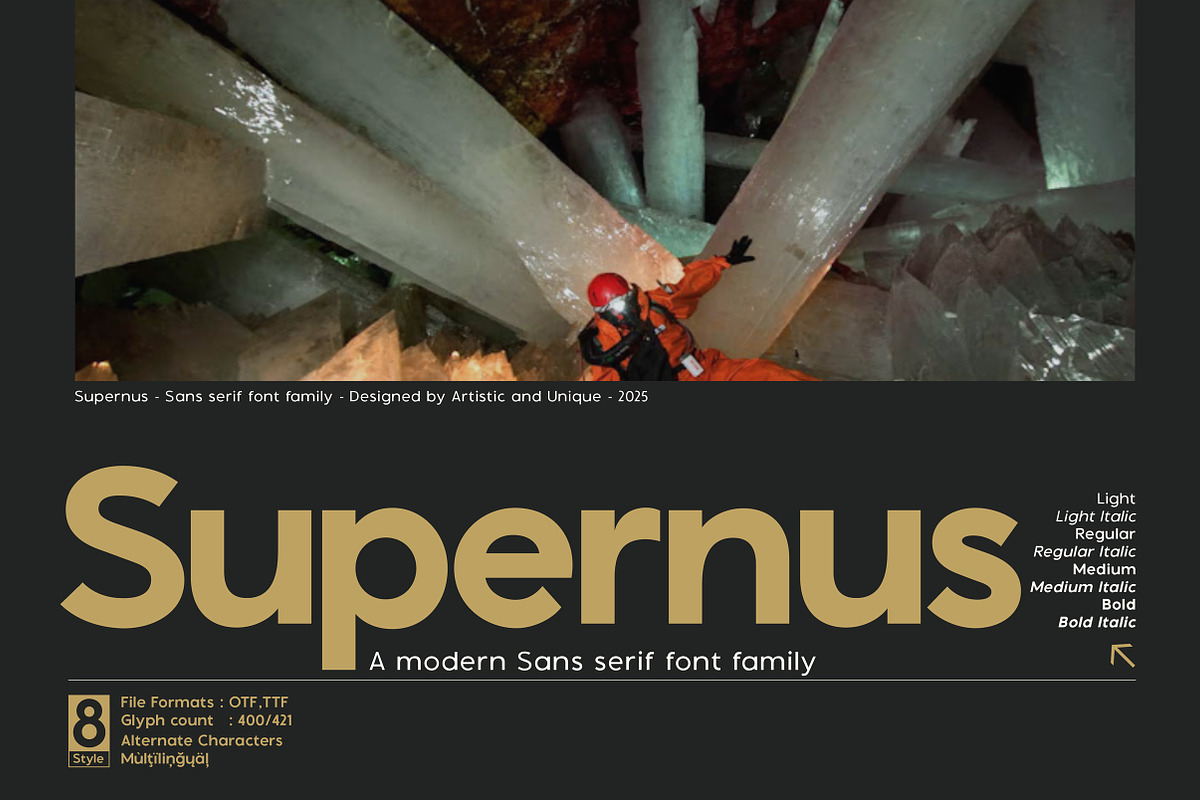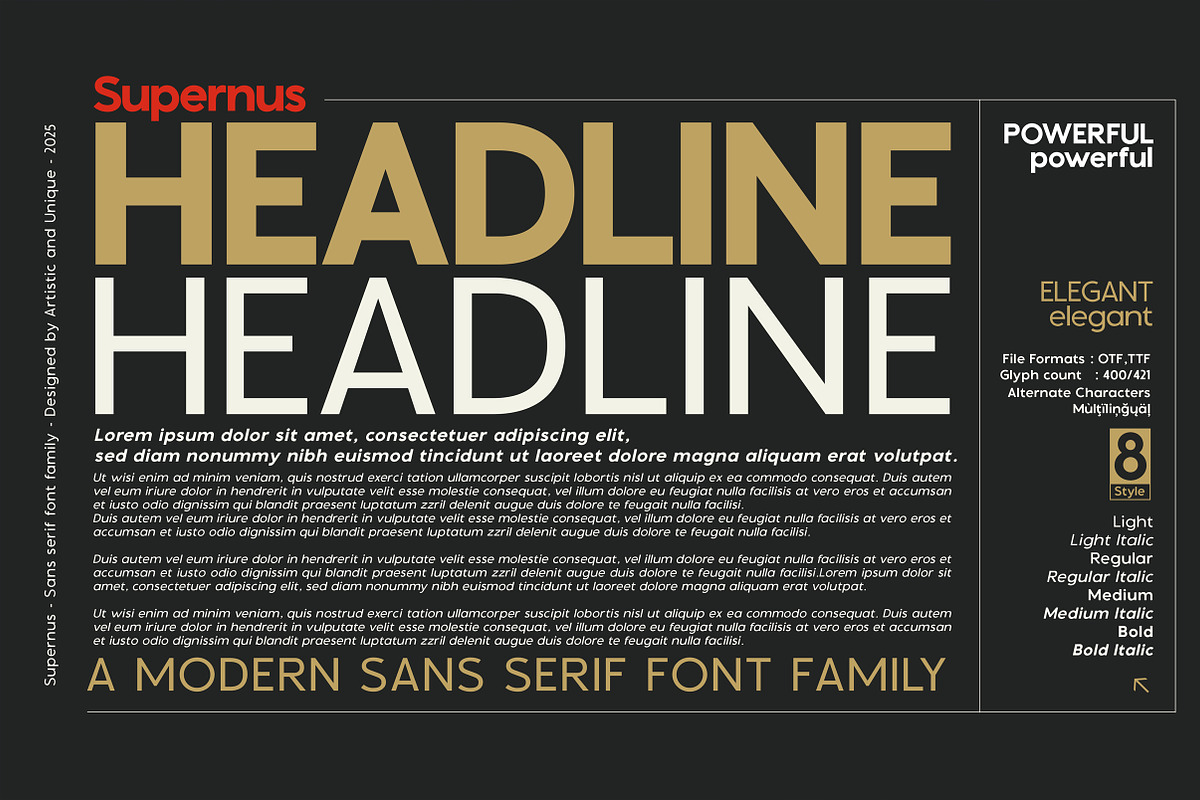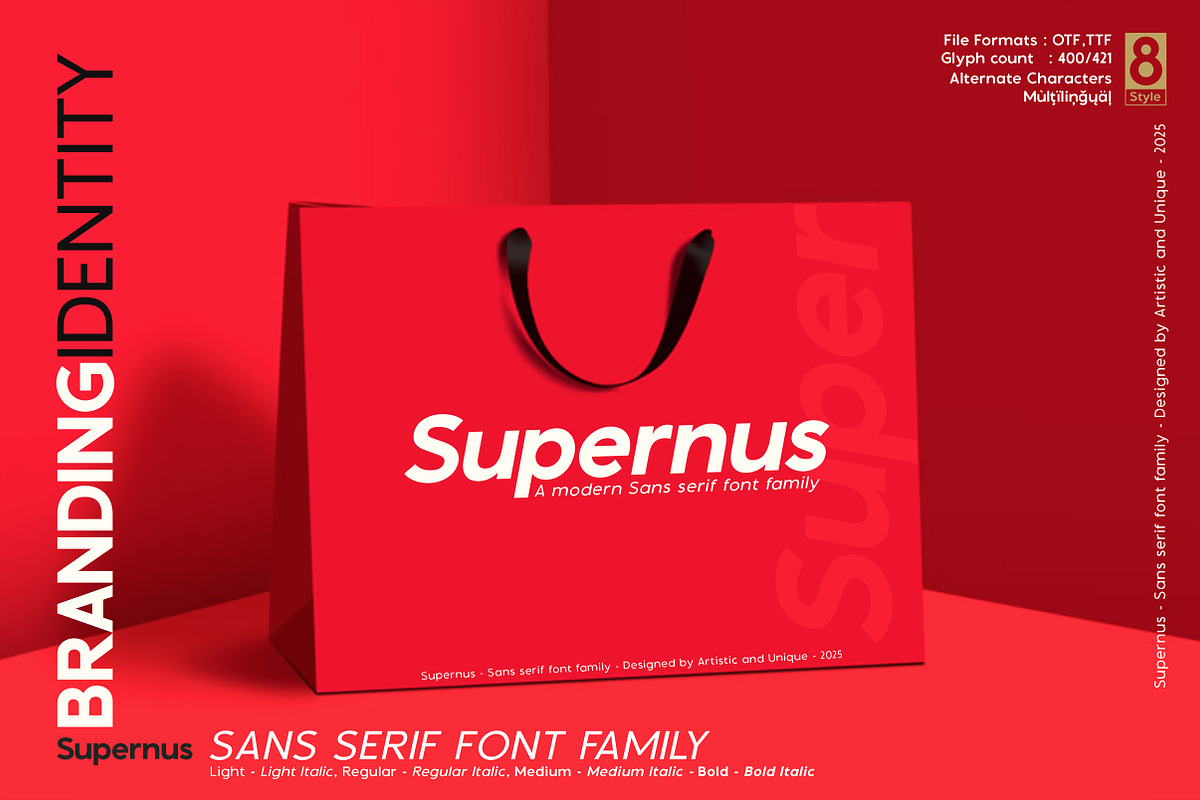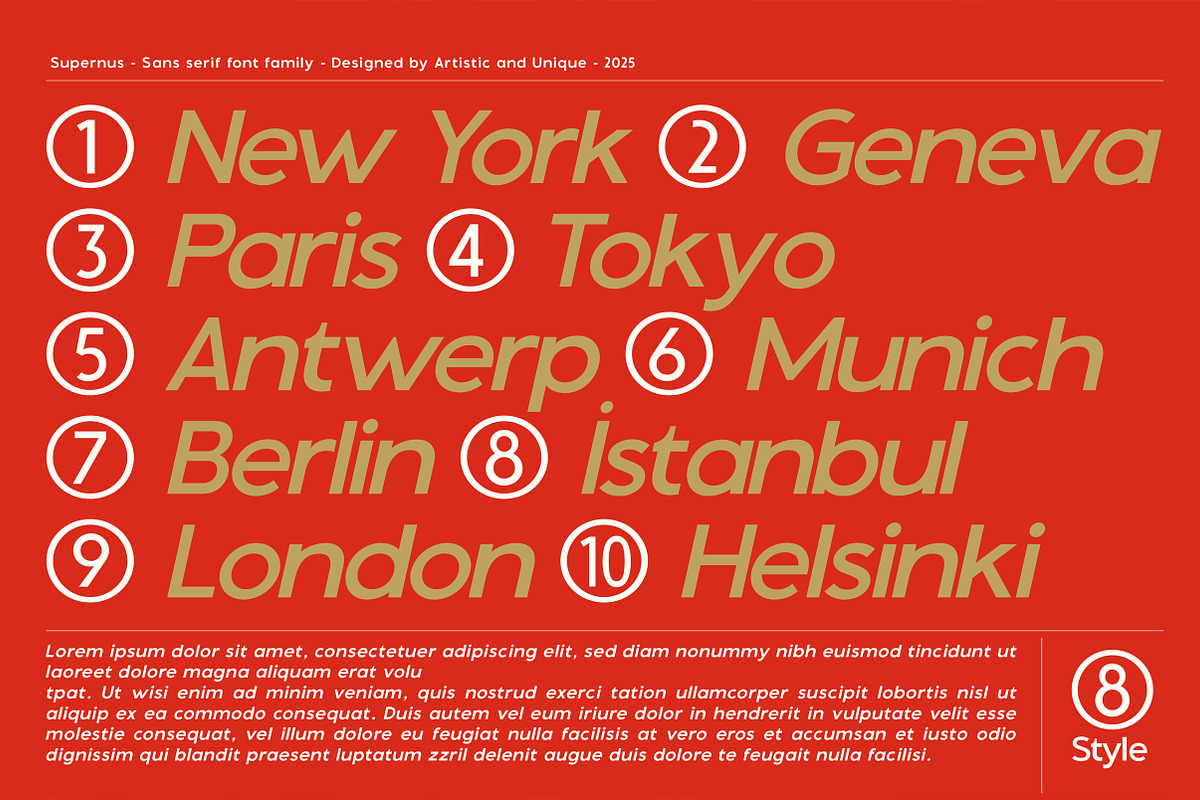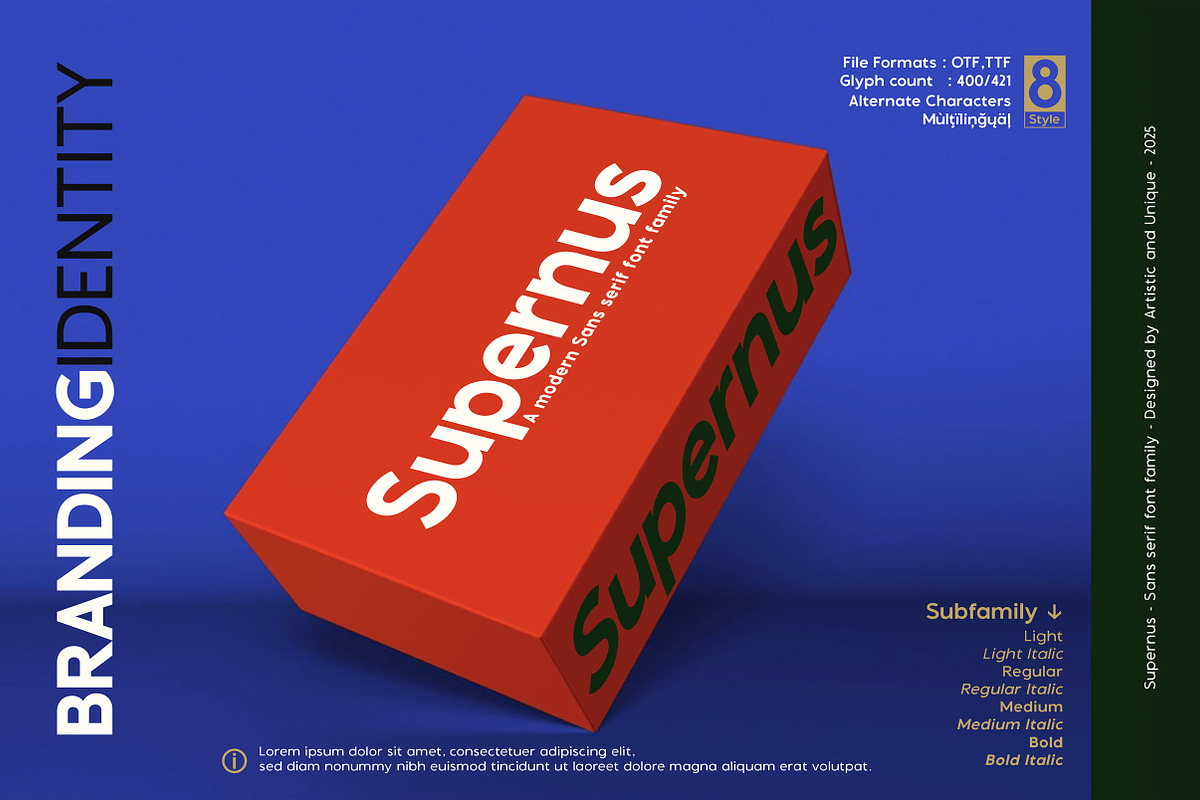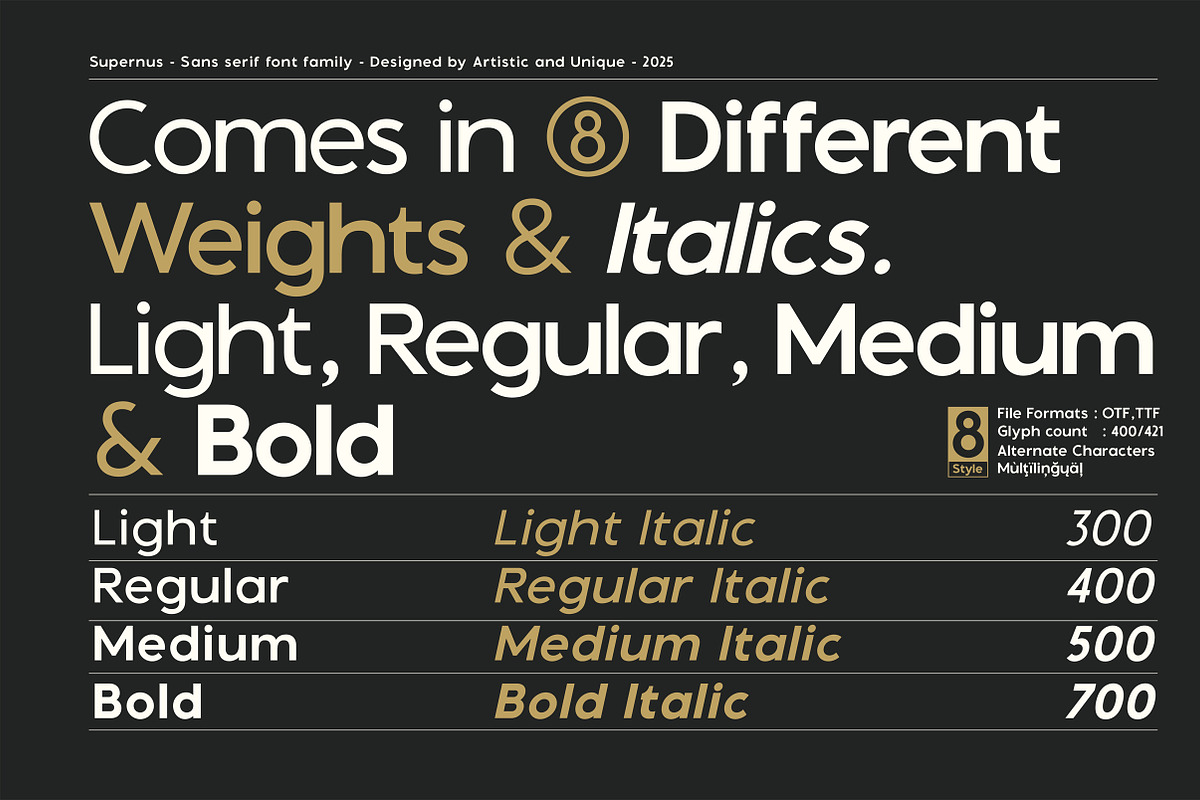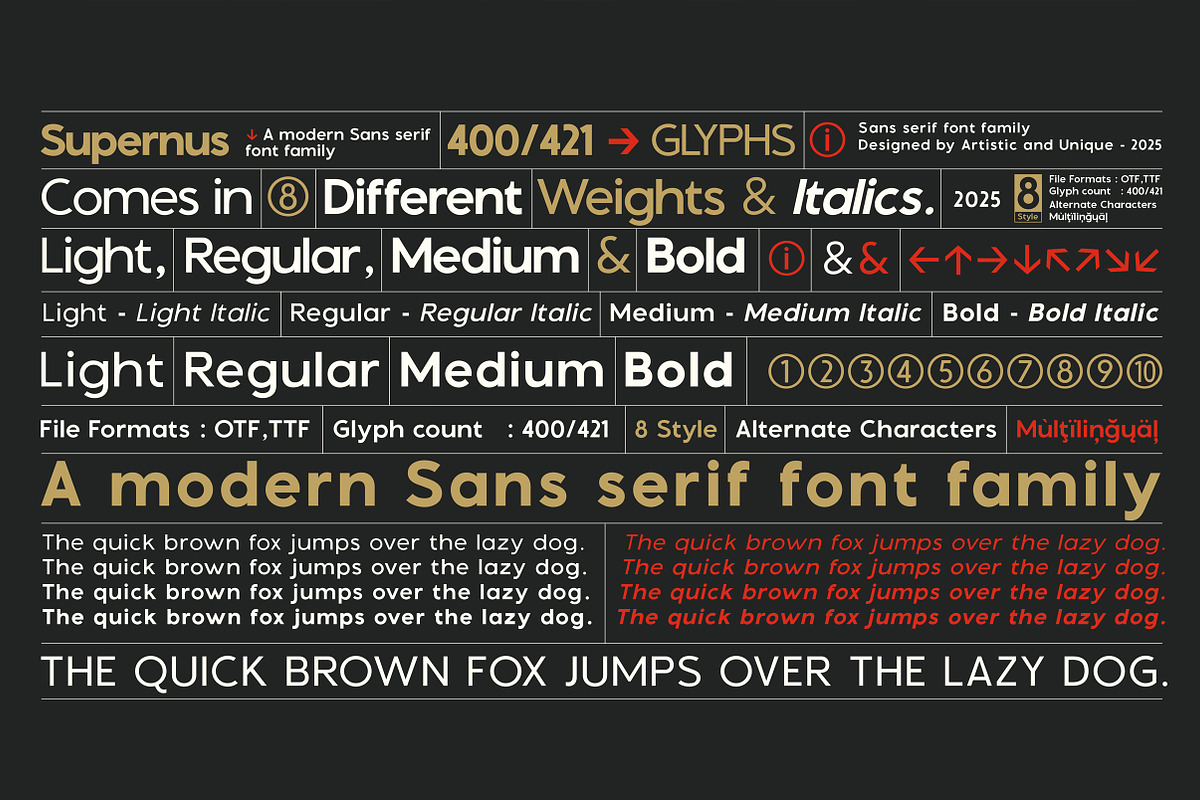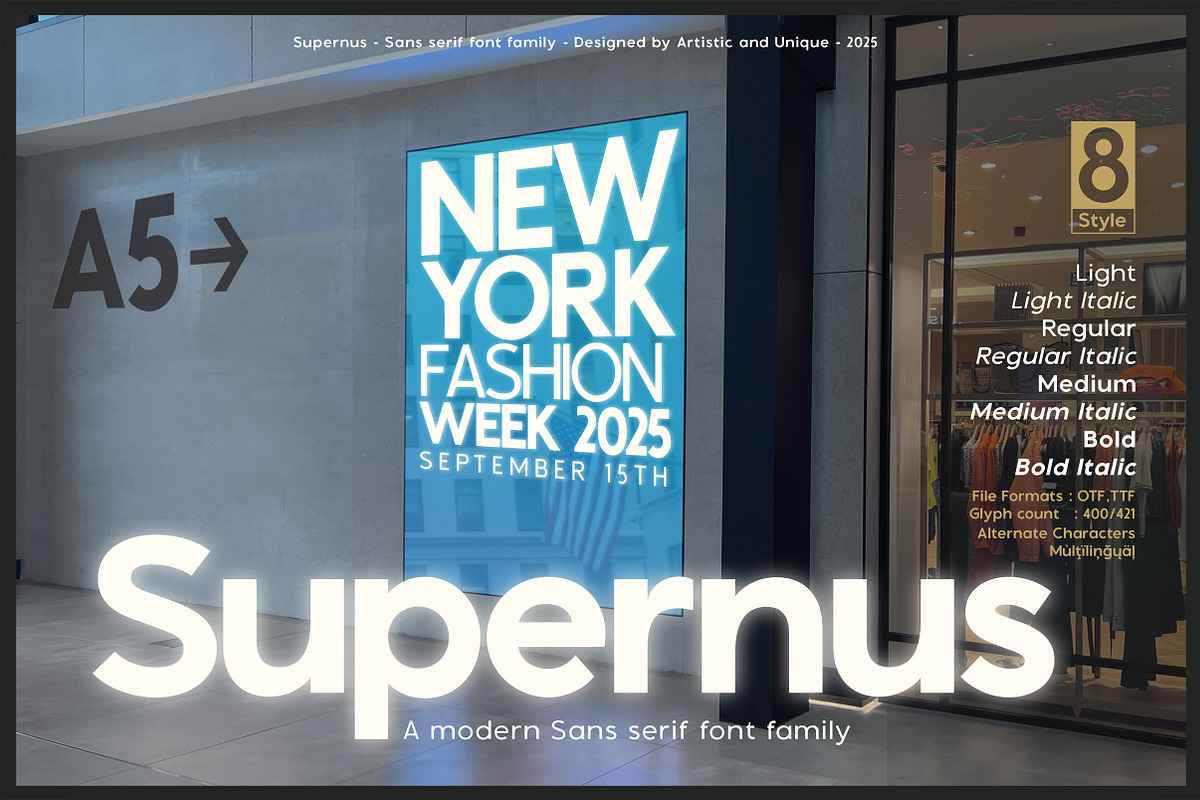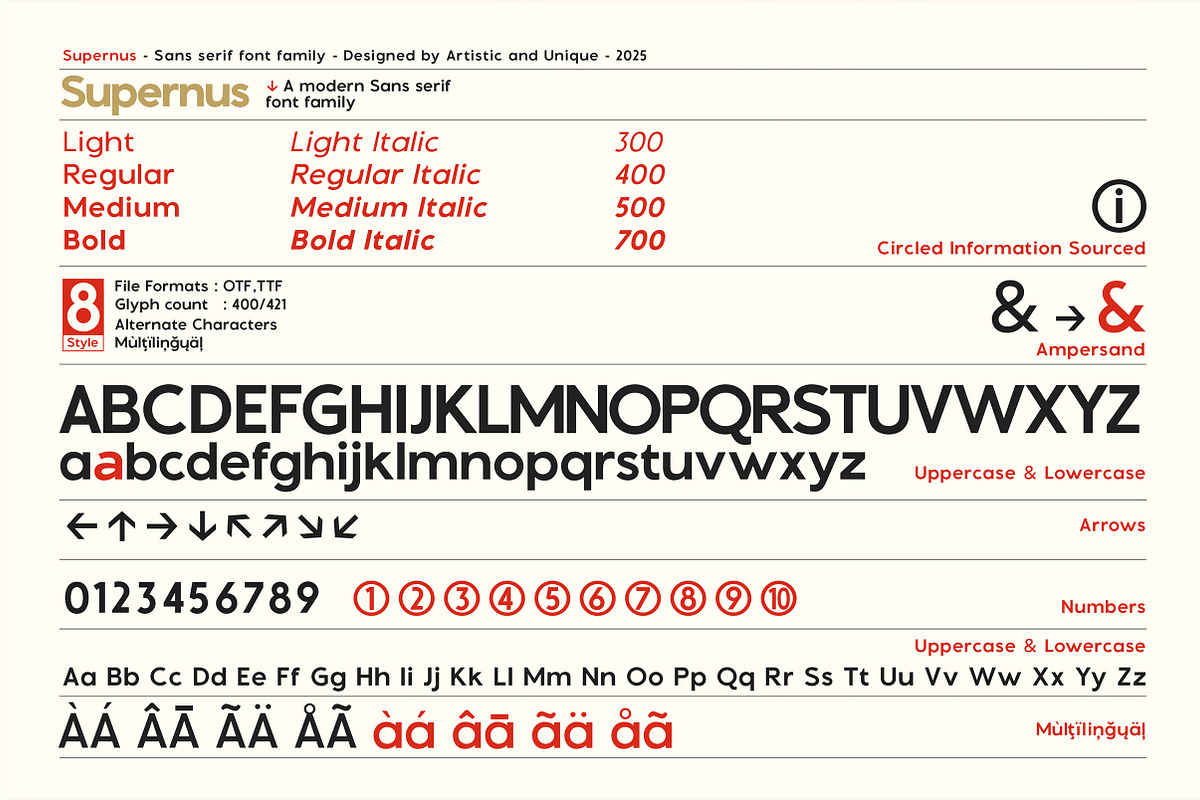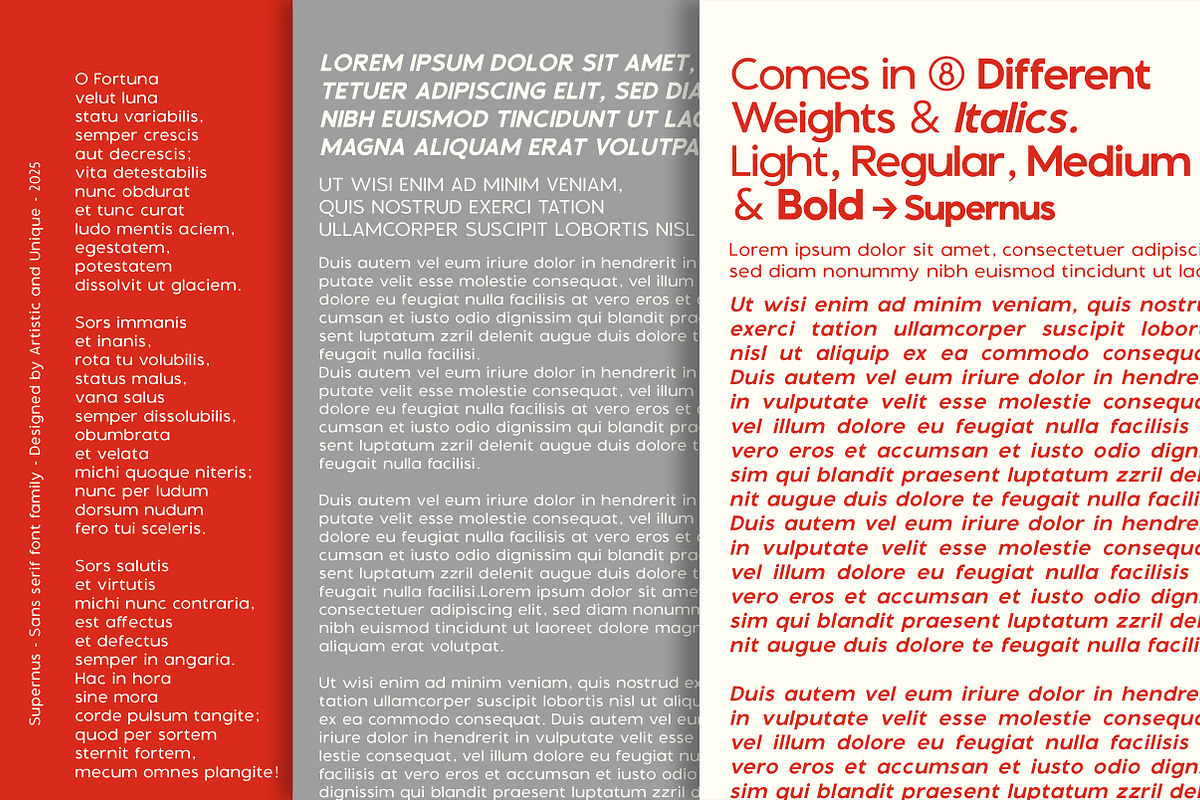
Supernus - Sans serif Font Family
Supernus - Sans serif Font Family - 8 Styles - Multilingual Support.
This sans serif font aims to attract attention in an innovative solution for designers who aim to enhance their brand toolkit by differentiating its modern appeal and versatility with some subtle nuances and ensuring seamless integration into both digital and print projects with its structural anatomy.
This family features eight distinct styles that deliver resolute readability and elegance across a variety of creative endeavors. Multilingual support further enhances its universal appeal; lighter tones offer a sophisticated look, while bolder tones attract attention in headlines.
- Multilingual support,
- 8 different styles,
- Style alternatives,
- Rich glyph options (421),
- Perfect for branding and editorial design,
- Suitable for web and logo design,
- Alternative characters and additional symbols.
Whether you're designing books, magazines, or newspapers, or developing editorial headlines, websites, logos, and brands, the Supernus font family offers a harmonious blend of modern and classic aesthetics. Enhance your designs with this versatile font that respects tradition while meeting contemporary needs.